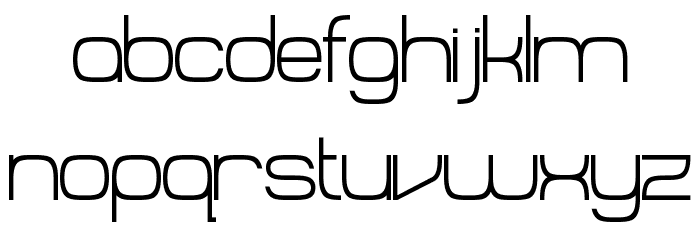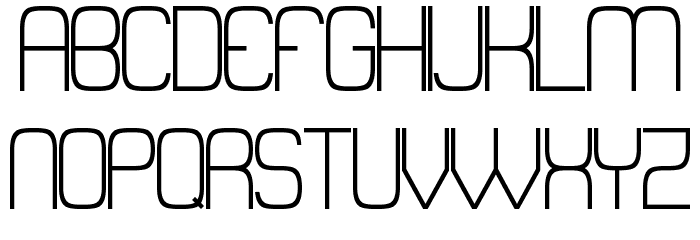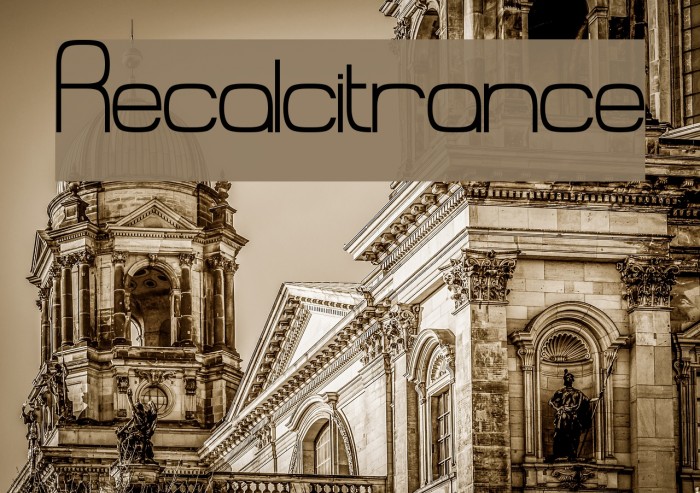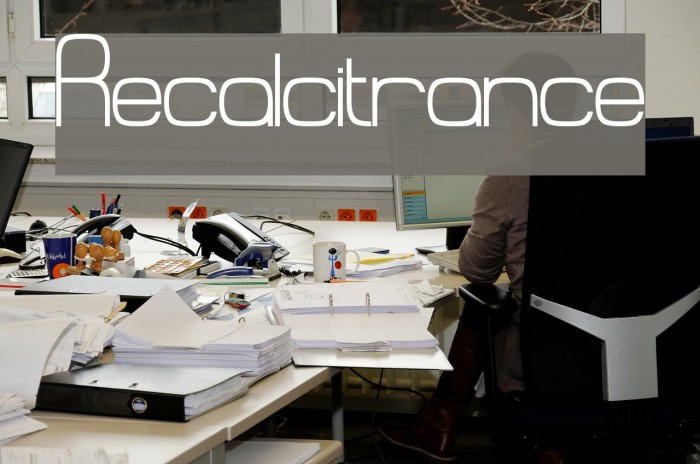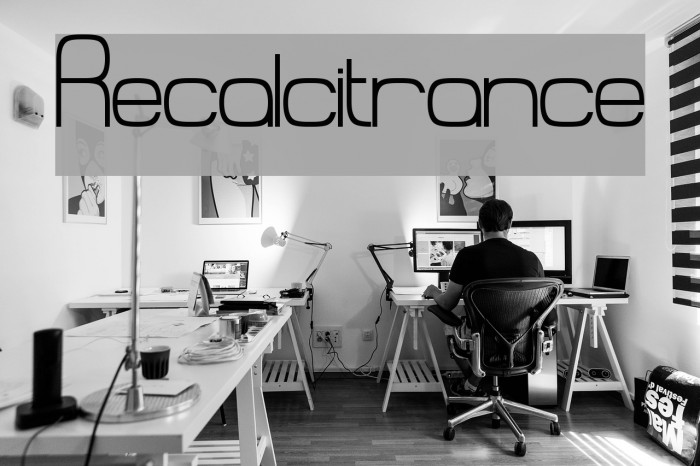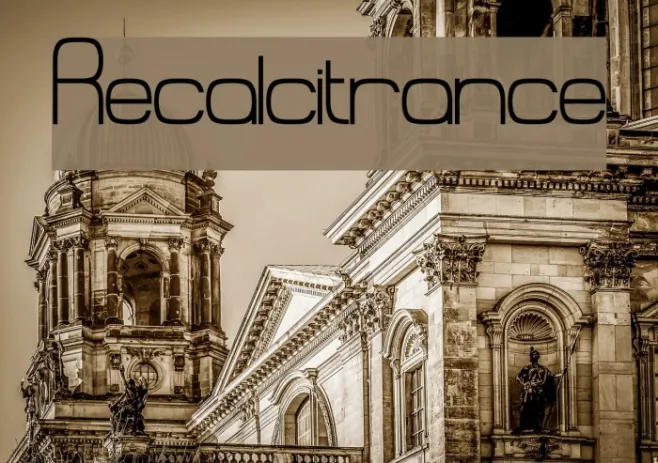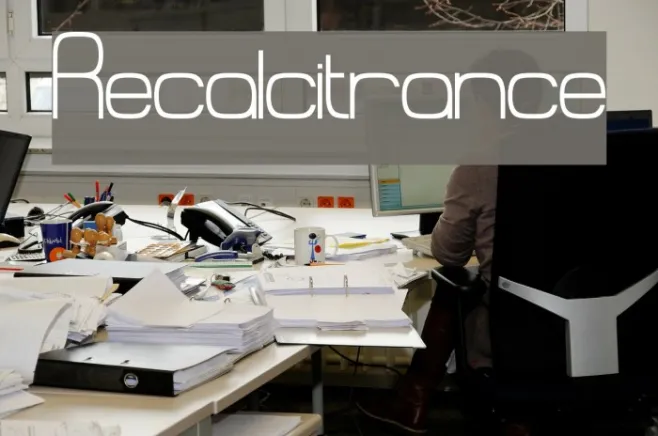
Recalcitrance Font
This font features a modern, geometric design with clean, straight lines and rounded corners, giving it a sleek and futuristic appearance. The characters are uniformly structured, maintaining a consistent height and width, which contributes to its orderly and minimalist aesthetic. The uppercase and lowercase letters share similar design traits, enhancing the font's cohesive look. The numerals and special characters are designed to match the overall style, ensuring visual harmony across all elements. The font's simplicity and clarity make it highly legible, even at smaller sizes, while its unique style adds a touch of sophistication to any project.
A modern, geometric font with clean lines and rounded corners, offering a sleek and futuristic look.
- Proposed Projects: Ideal for tech branding, modern advertising, digital interfaces, and minimalist graphic design projects.
- Use Case: Headlines, Logos, Digital Interfaces